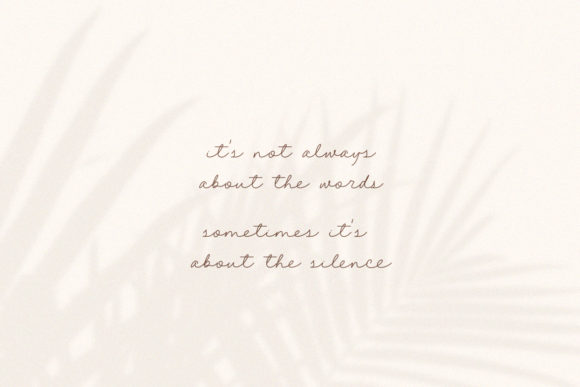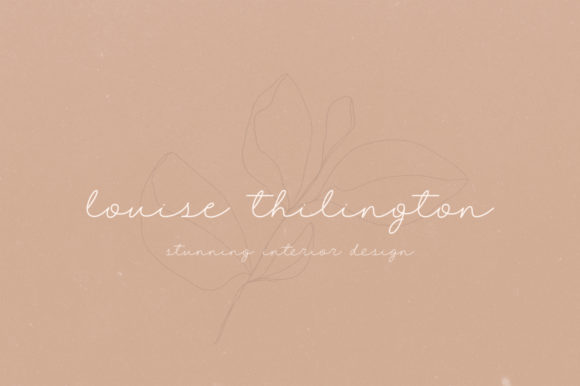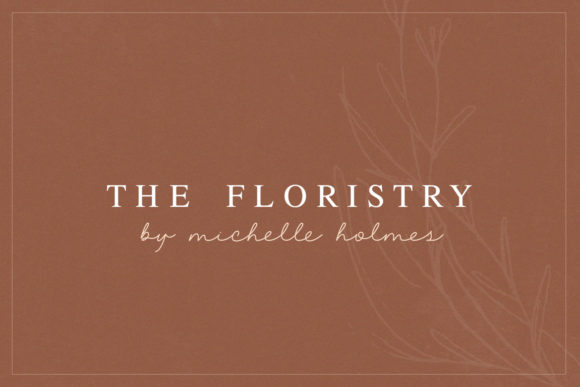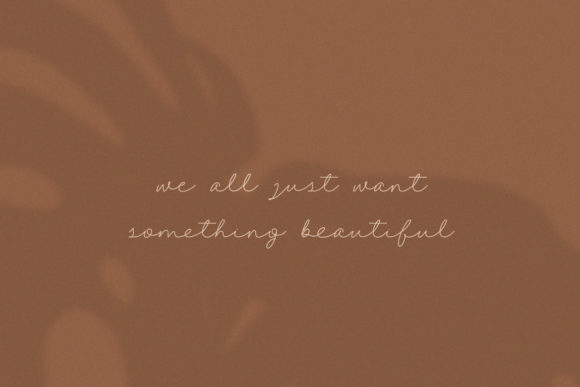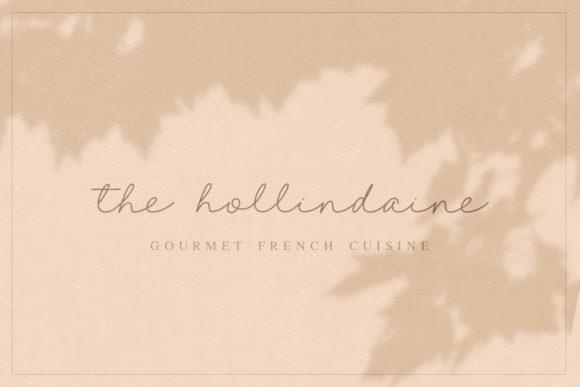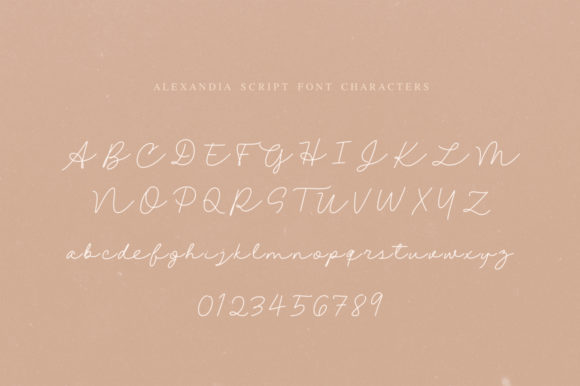
A Delightful Discovery in Typography
There’s something magical about stumbling upon a font that perfectly captures the essence of your design vision. The words flow effortlessly, the curves dance across the page, and suddenly, your project comes alive. For designers, this moment of serendipity is a treasure to behold. It’s a reminder that the right typography can elevate a design from mere aesthetics to a work of art.
Meet Alexandia Font, a sweet and lovely handwritten font that embodies this magic. Designed to enhance the beauty of your projects, Alexandia Font boasts a beautiful flow and a smooth touch. Its balanced and varied strokes create a sense of harmony that’s hard to resist. Whether you’re crafting a wedding invitation, a children’s book, or a social media campaign, Alexandia Font is the perfect companion for your creative endeavors.
Alexandia Font Key Features
- Unique Characteristics: Features a unique blend of modern and classical elements, making it suitable for a wide range of design applications, from corporate identities to editorial content.
- Style Options: Available in multiple styles, including Regular, Italic, Bold, and Bold Italic, allowing for flexibility in design and typography.
Review of Alexandia Font
I recently had the chance to work with Alexandia Font, and I must say it’s a mixed bag. Here are my honest thoughts.
- ✨ Elegant and sophisticated design: Alexandia Font is perfect for creating a luxurious and high-end feel in your designs.
- ✨ Excellent for headings and titles: The font is highly legible and looks great in larger font sizes, making it ideal for headings and titles.
- ✨ Great for branding: With its unique and stylish design, Alexandia Font can help you establish a strong brand identity.
- ⚠️ Limited character set: I found that the font is not available in as many languages as I would have liked, which can be a limitation for multilingual designs.
- ⚠️ Not suitable for body text: While Alexandia Font is great for headings and titles, it can be difficult to read in smaller font sizes, making it not ideal for body text.
- ⚠️ Can be too ornate: In some cases, the font can feel too elaborate and overwhelming, which may not be suitable for all designs.
Overall, I think Alexandia Font is a great addition to any designer’s toolkit. While it has some limitations, its elegant design and excellent legibility make it perfect for certain types of projects. With a little creativity and restraint, I think this font can really shine.